FontDiscovery no.18: Tips about the Flirty Font League Script & Storytelling with Comic Books
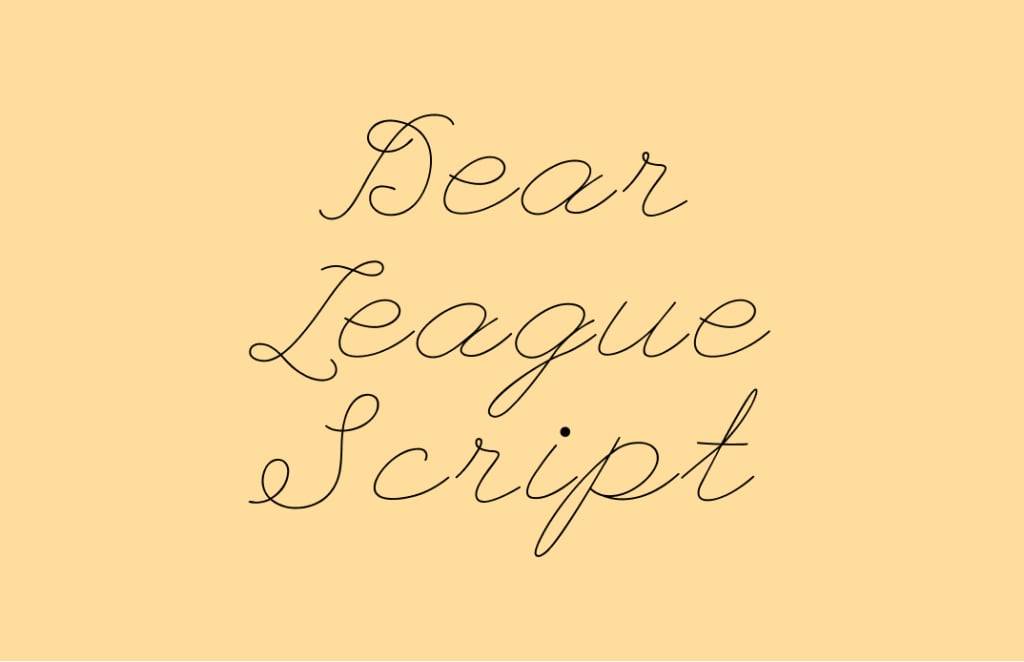
- Fonts: League Script
img: sample of League Script
Font of the Week
Out of My League
When I was growing up, my friend Lindsay had the most beautiful handwriting. Whenever we got yearbooks, she would bring a pack of color gel pens. People lined up to get her to sign yearbooks. She was creative and wrote the heartfelt message with cutesy, heart-filled cursive letters. Hearts replaced dots on i’s and apostrophes. She would write pages and pages of these glittery, thoughtful messages.
The name League Script is a little misleading. It might have made you think that this font has a connection to sports. The designer of League script has said it is somewhere between a handwritten letter from the 1920s and a high school girlfriend’s love note. Upon a close examination, we’ll find flirty flares and thin, ball-point pen-like strokes with round caps.
Font Details
- Enlarged dots
- Uneven baseline in capital letters
- Thin strokes with round caps
img: font details of enlarged dots and round stroke caps
img: capital letters of this font have an uneven baseline, giving it a bouncy and whimsical look.
General Usage Tips
- Suitable for text at large font size
- One weight
- Avoid using at small sizes, like paragraphs
- Pairing: Helvetica
Specific Usage Tips
How to use it for logo?
- Communicates softness, whim, casualness, intimate
- Not very suitable for logo. The thin strokes break when displayed small. Logos need to be legible in small sizes.
How to use it for marketing and branding?
- Looks fantastic in large sizes because of the casualness and ease
- Consider this font for showy marketing pieces
img: a shop banner made using League Script and Helvetica
img: a slightly similar thin script is used here on a theater in Berlin; source: FontsinUse
Creative Prompt
Can you create a mother’s day graphic with League Script, strips and panels, and the color palette from this week?
img: simple infographic about League Script